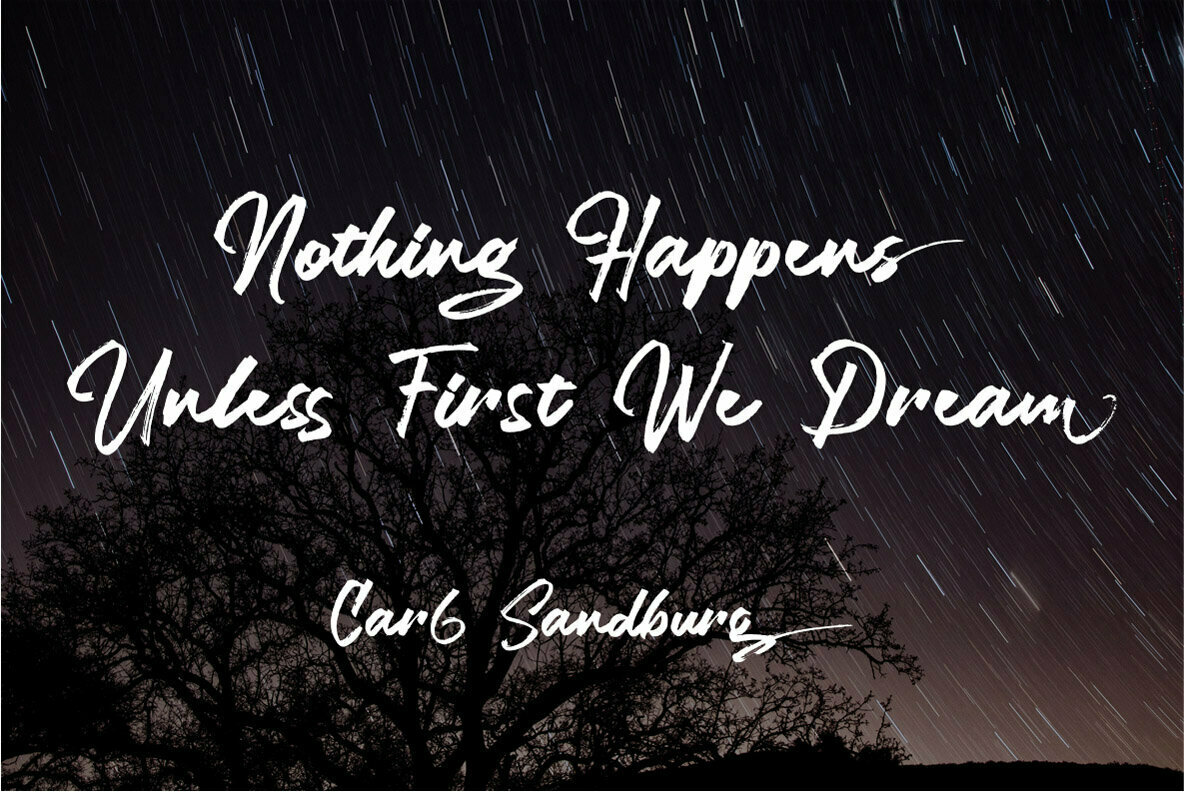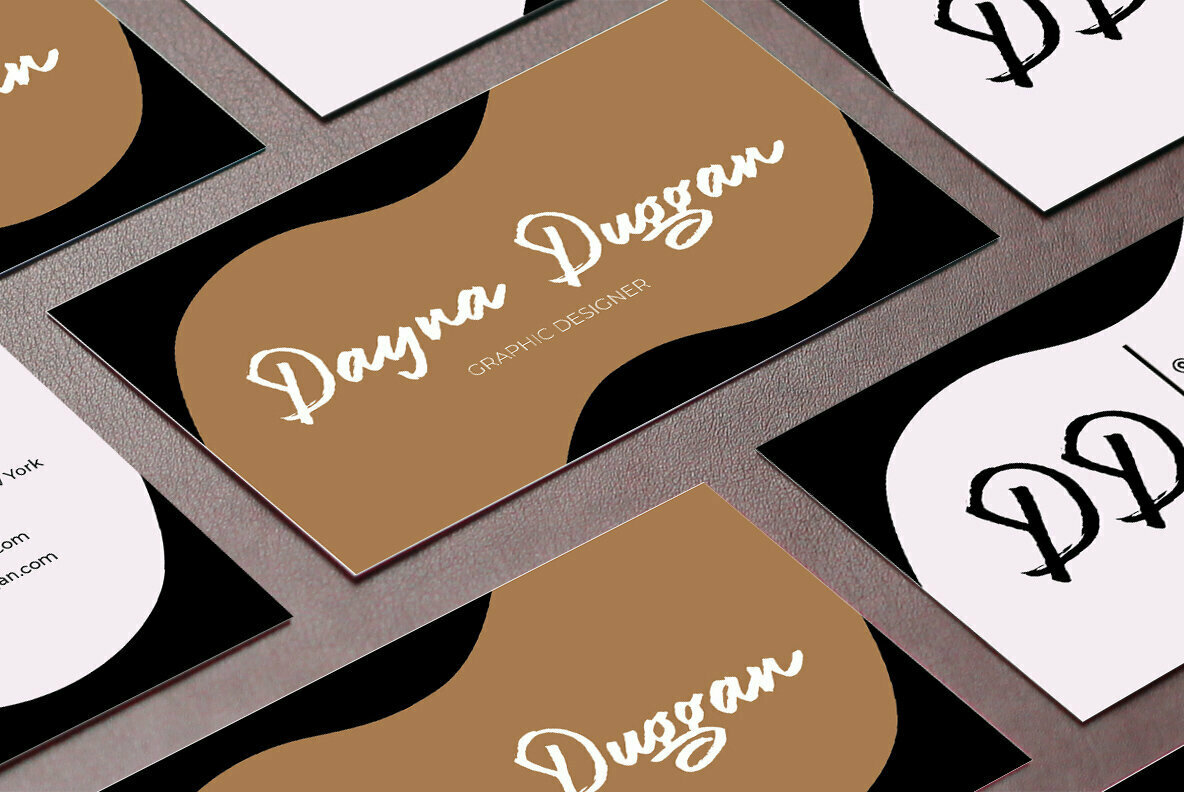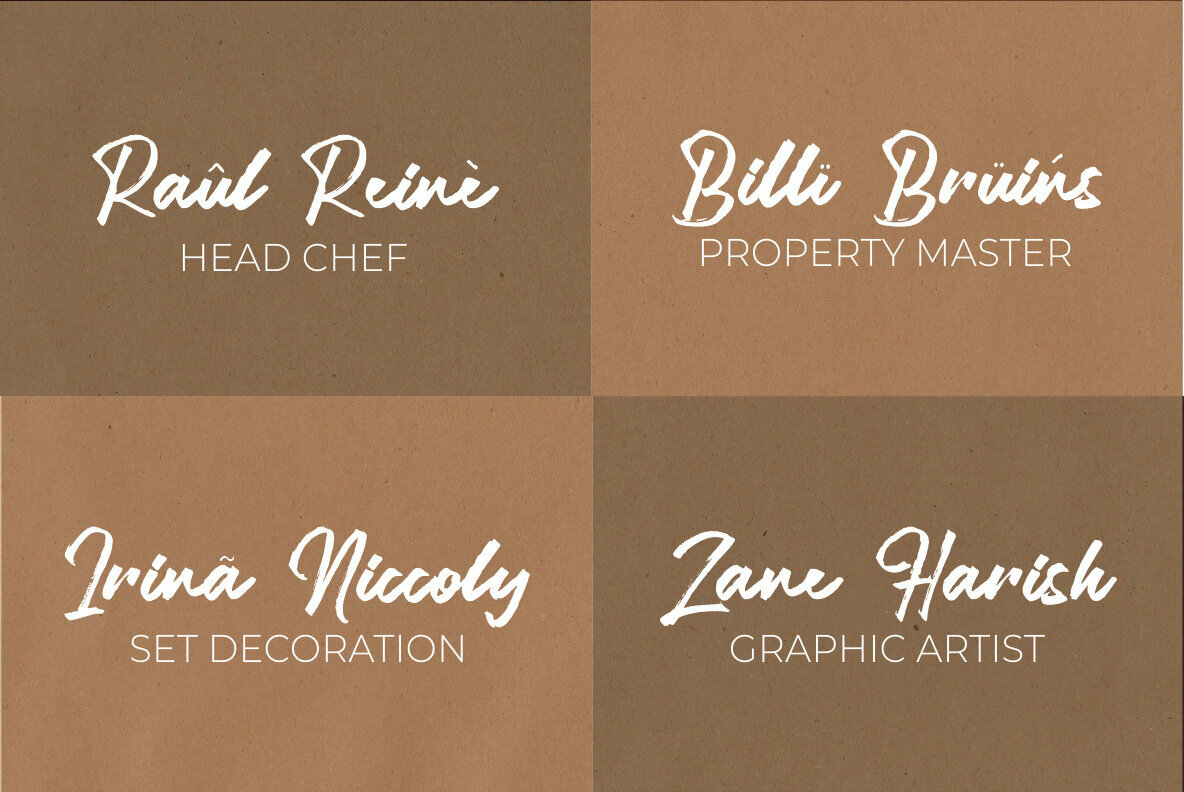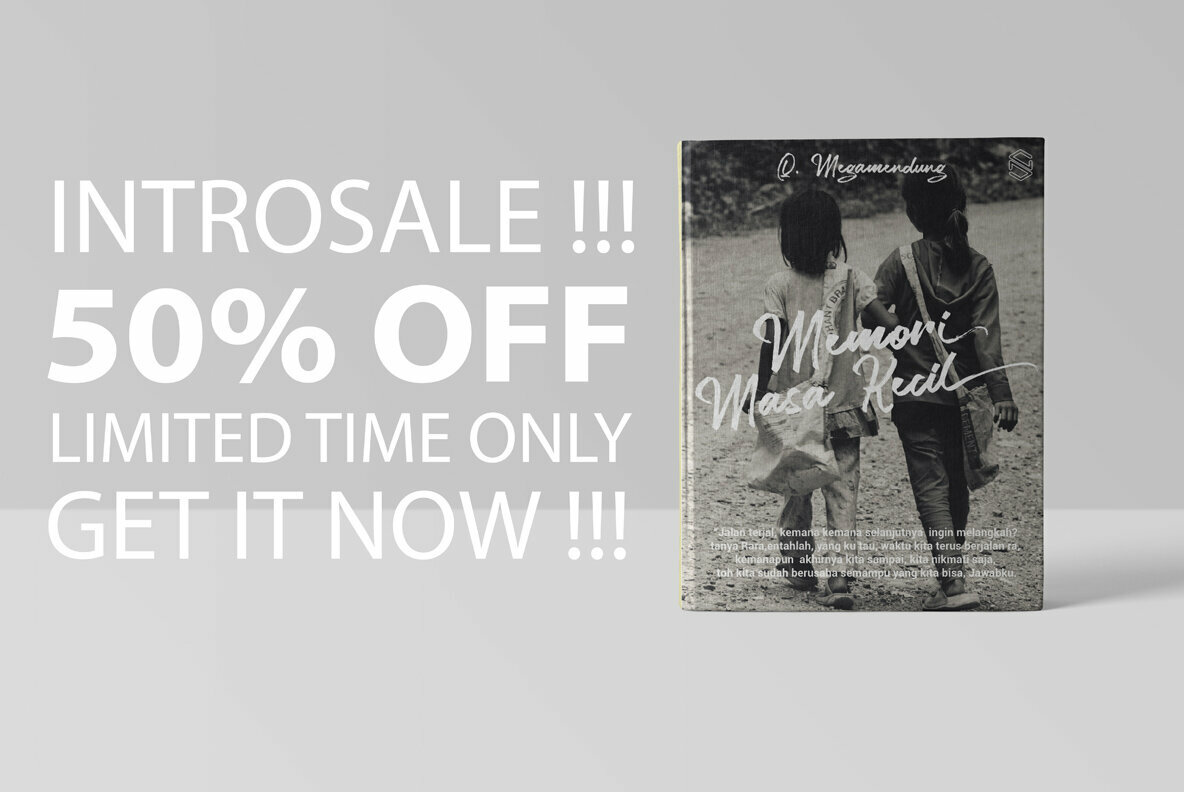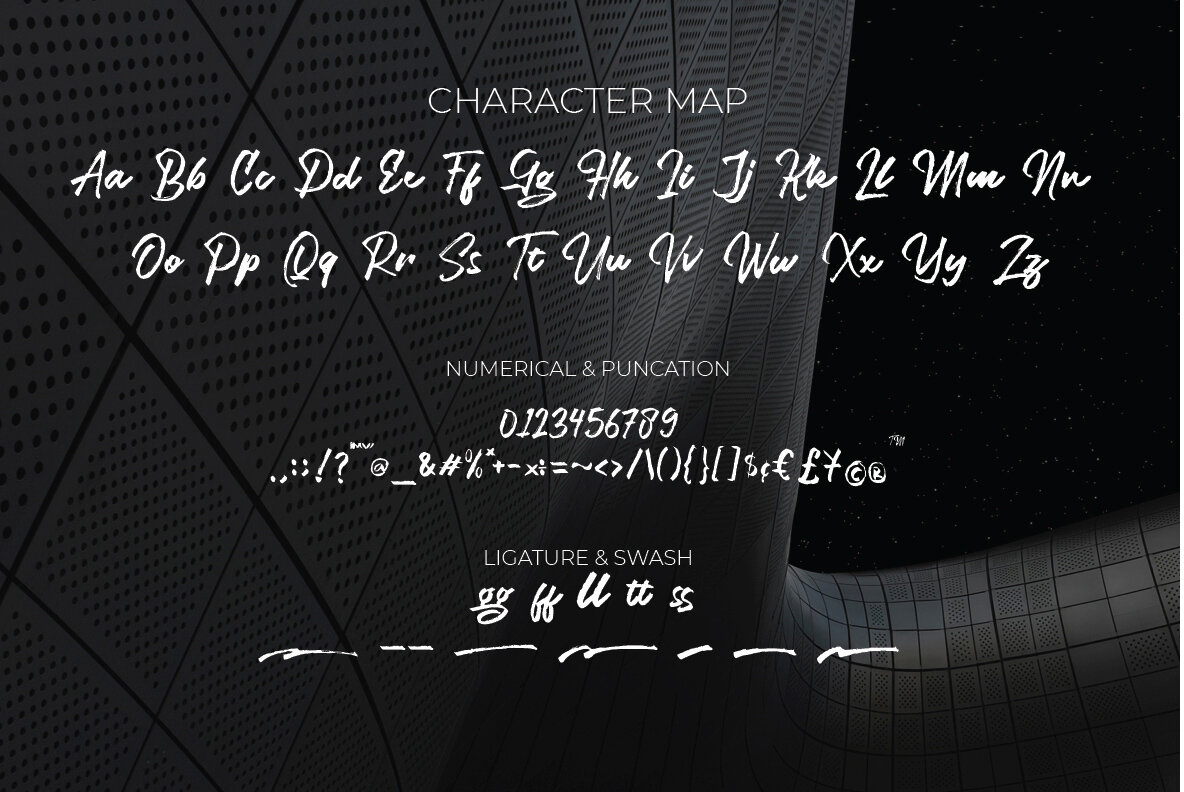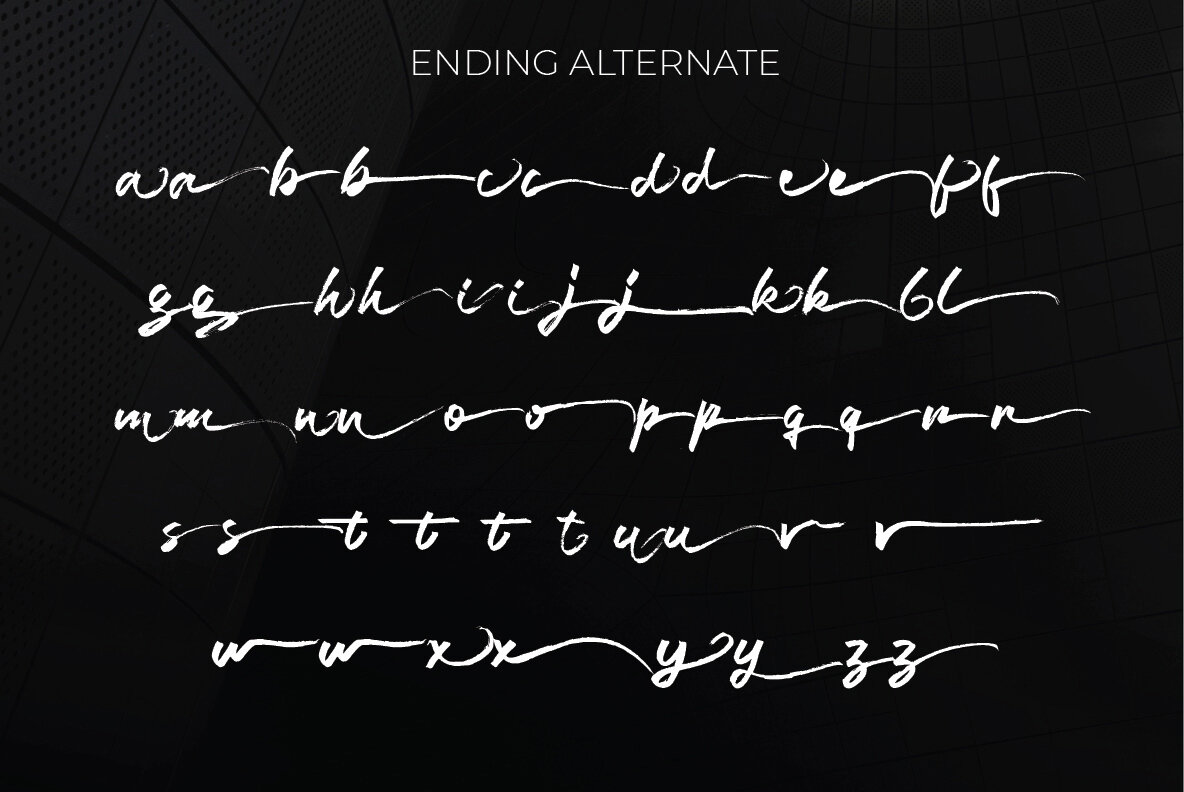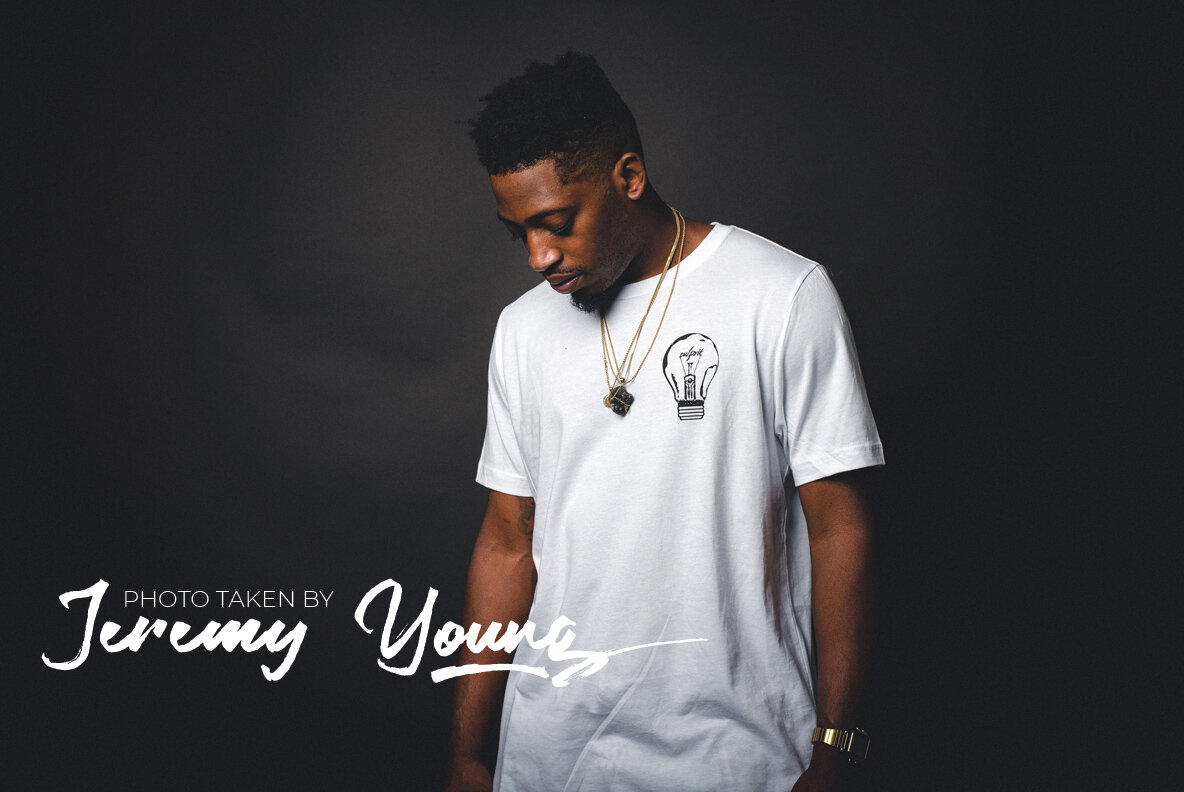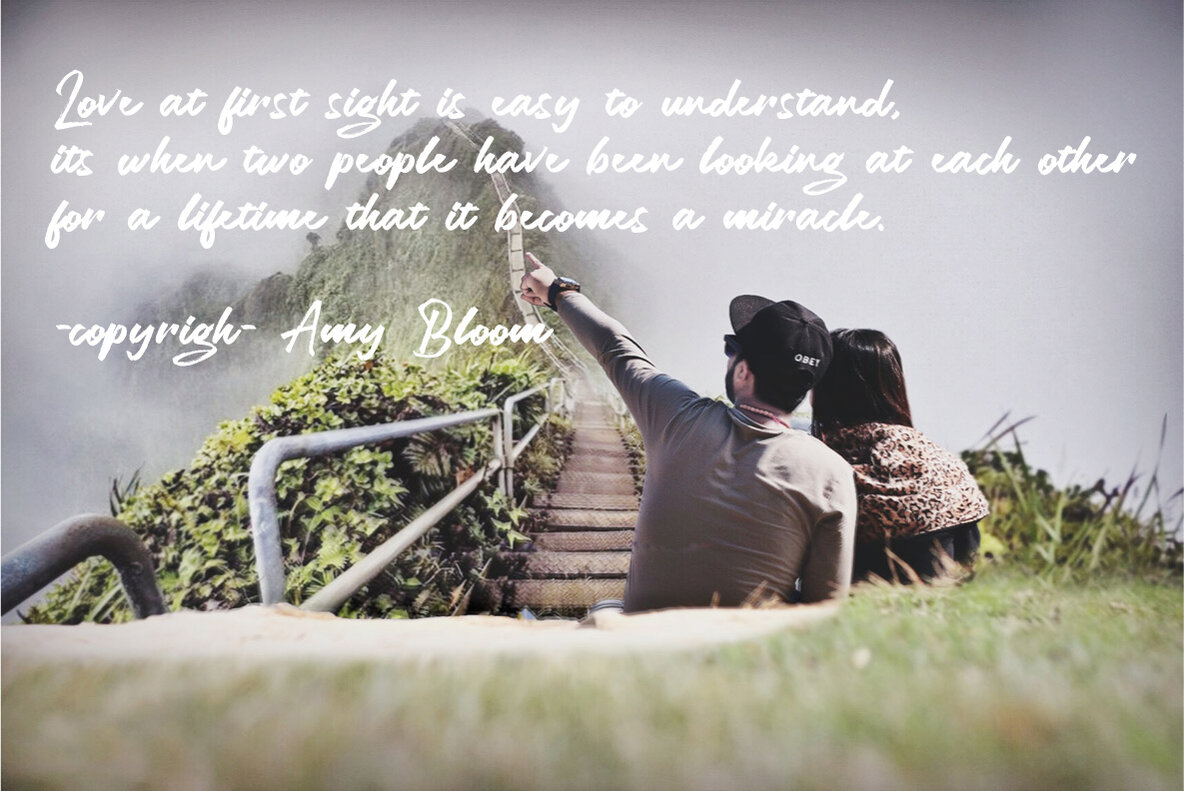
Legiante Font
Legiante
Legiante is a handwritten font with a personal charm. Each letter was made with a brush pen on real paper, then scanned and crafted to vector carefully to add strong characteristic. With quick dry strokes and signature style, Legiante is perfect for branding projects, homeware designs, product packaging - or simply as a stylish text overlay to any background image like quote images.